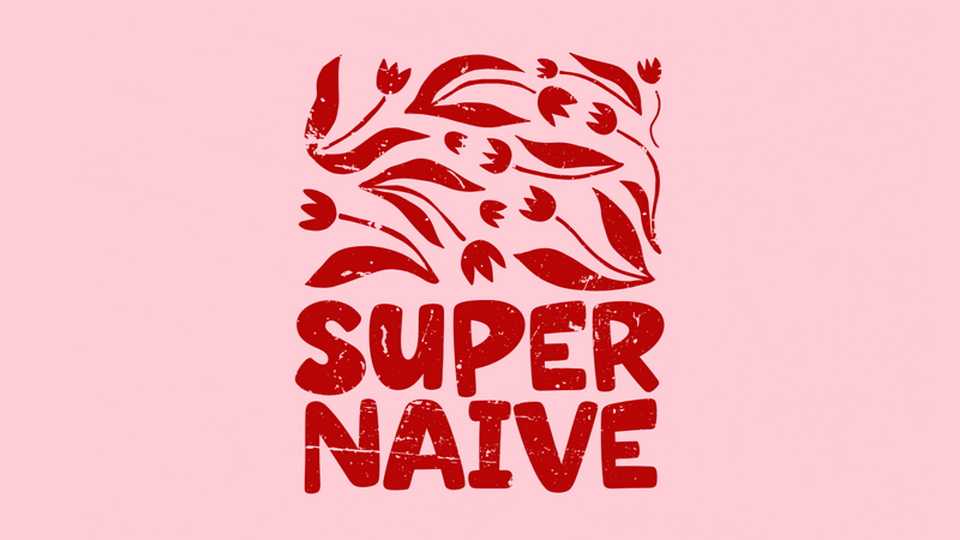
Download Super Naive font, a bold, expressive display typeface with a charmingly imperfect, hand-crafted feel. Its chunky letterforms give the font a raw and emotional character.